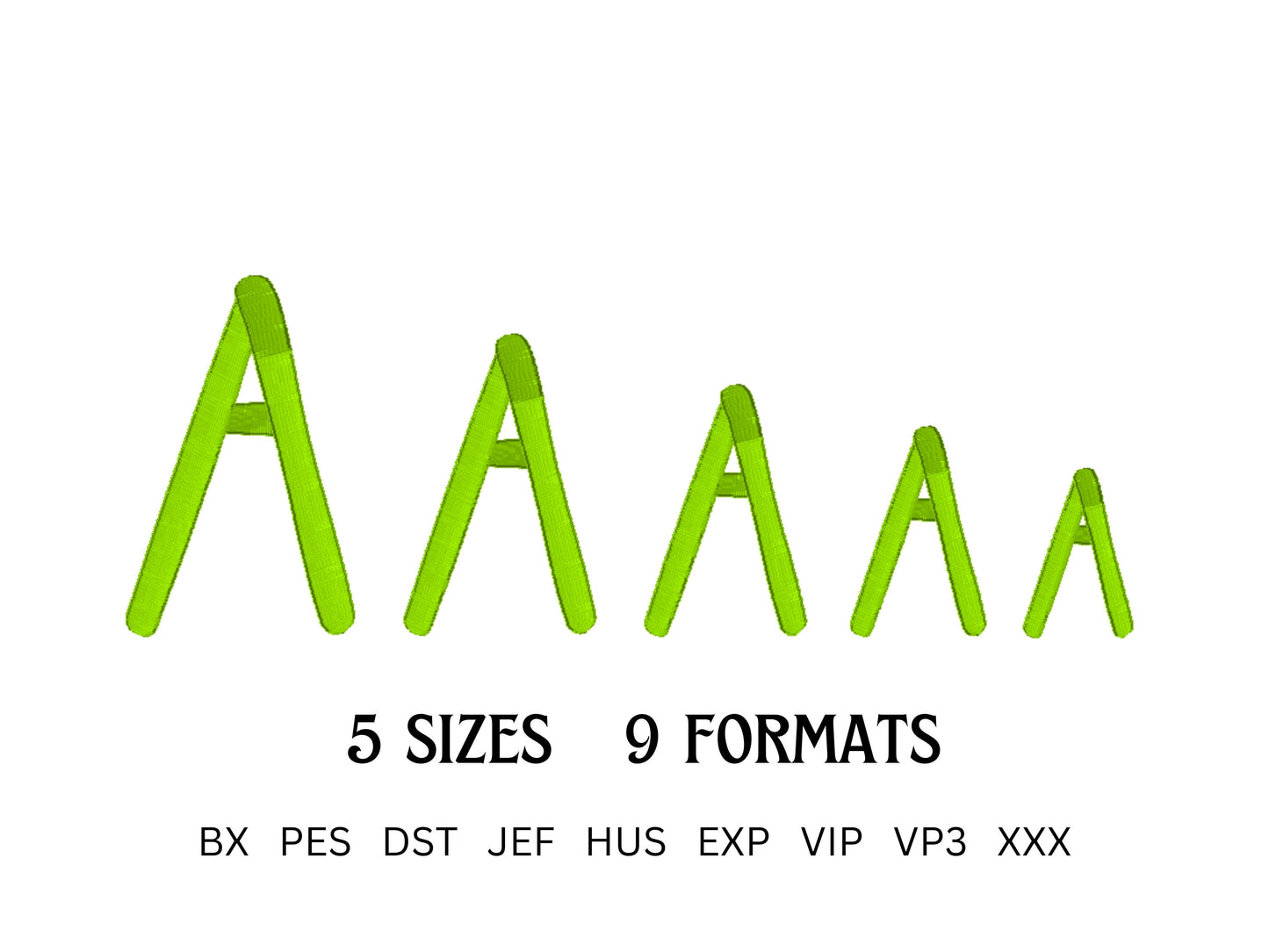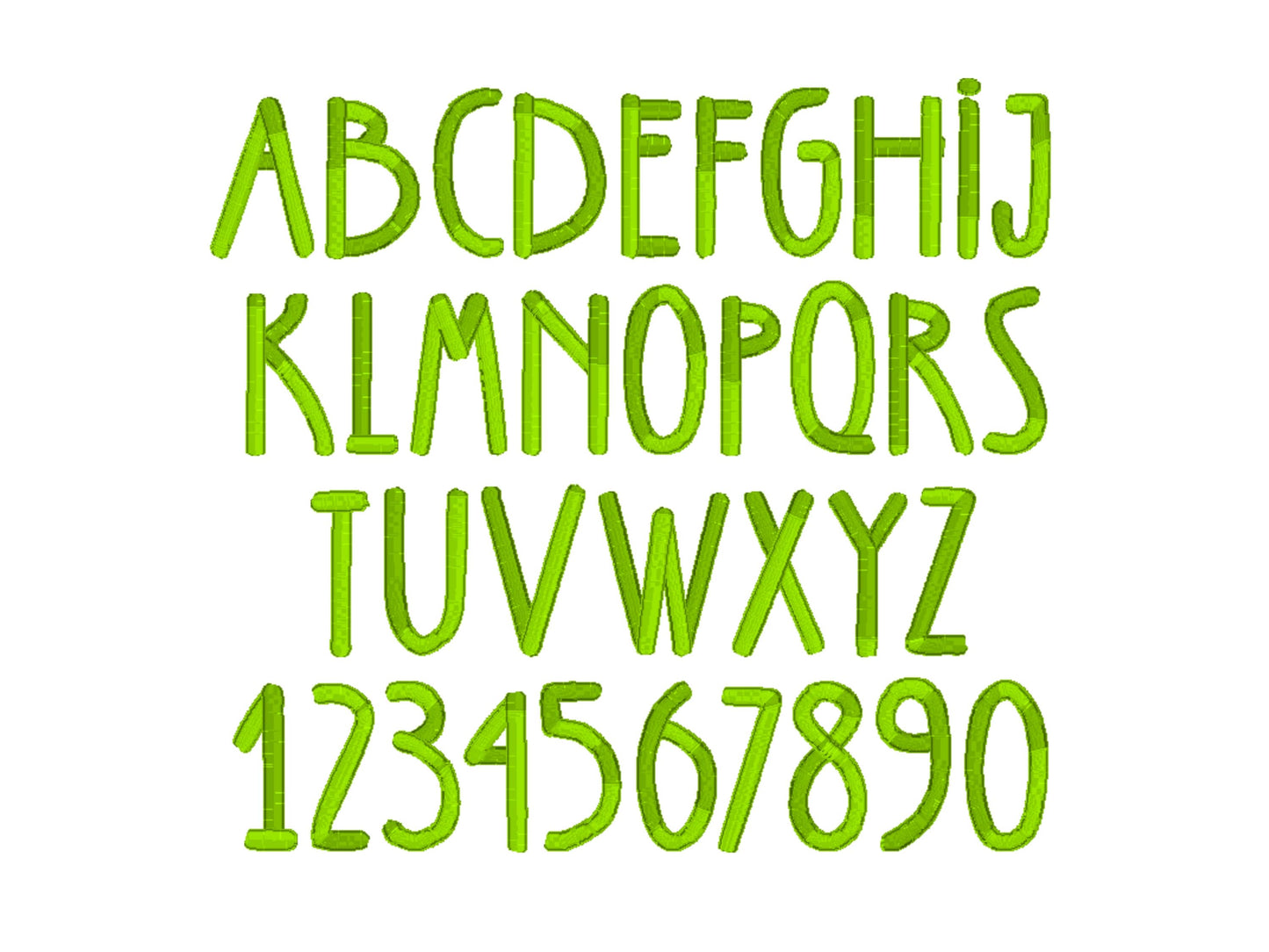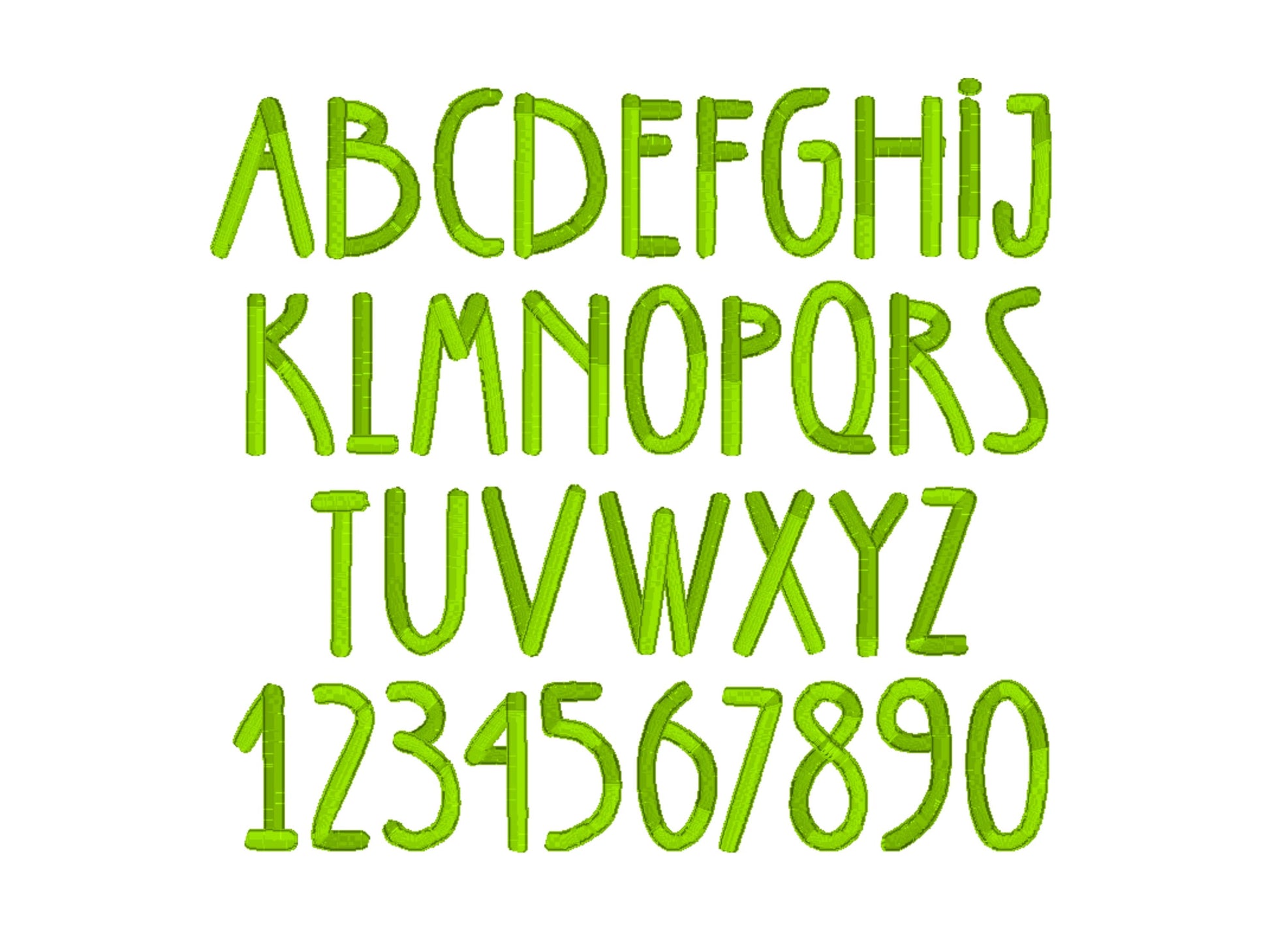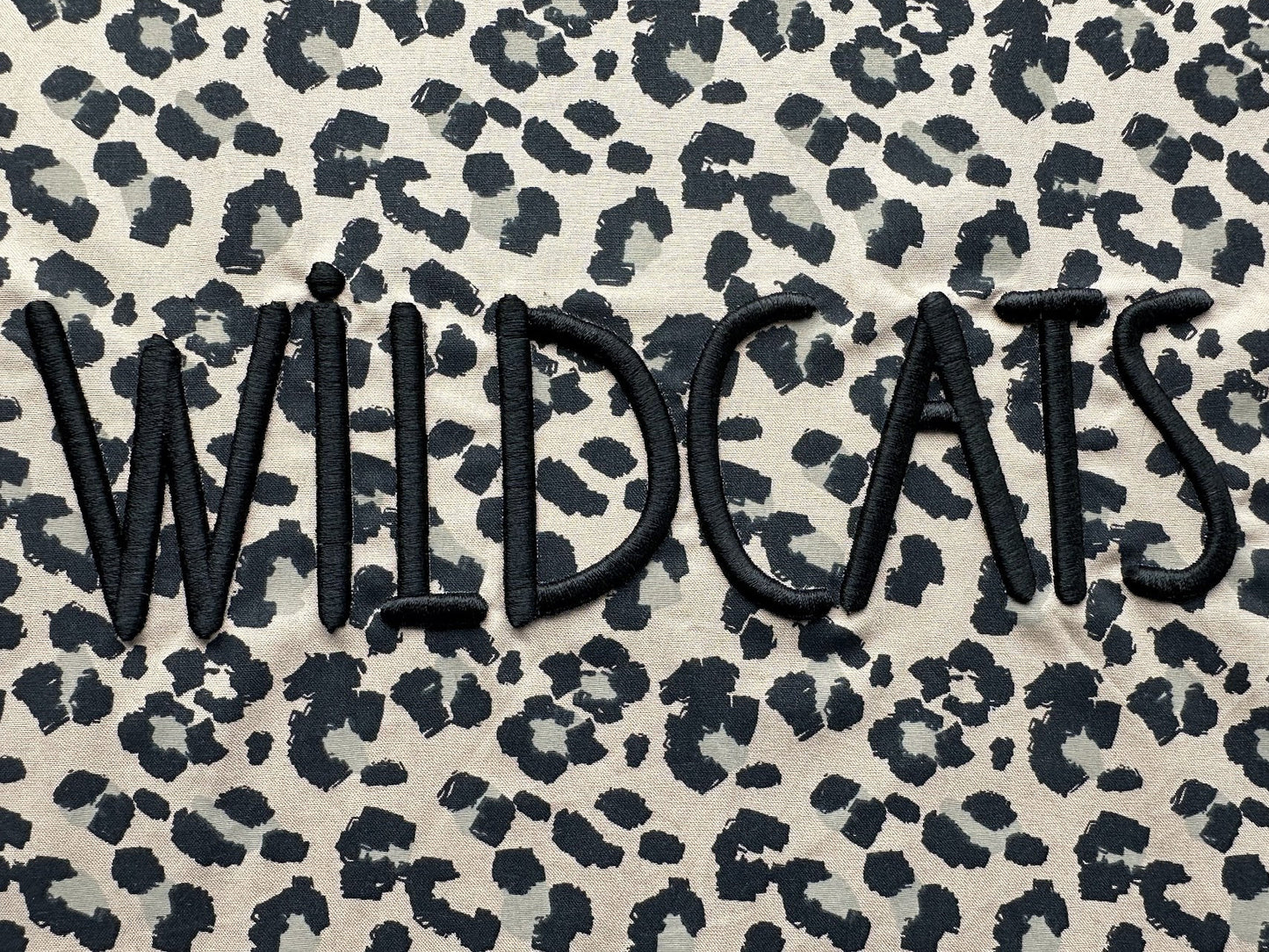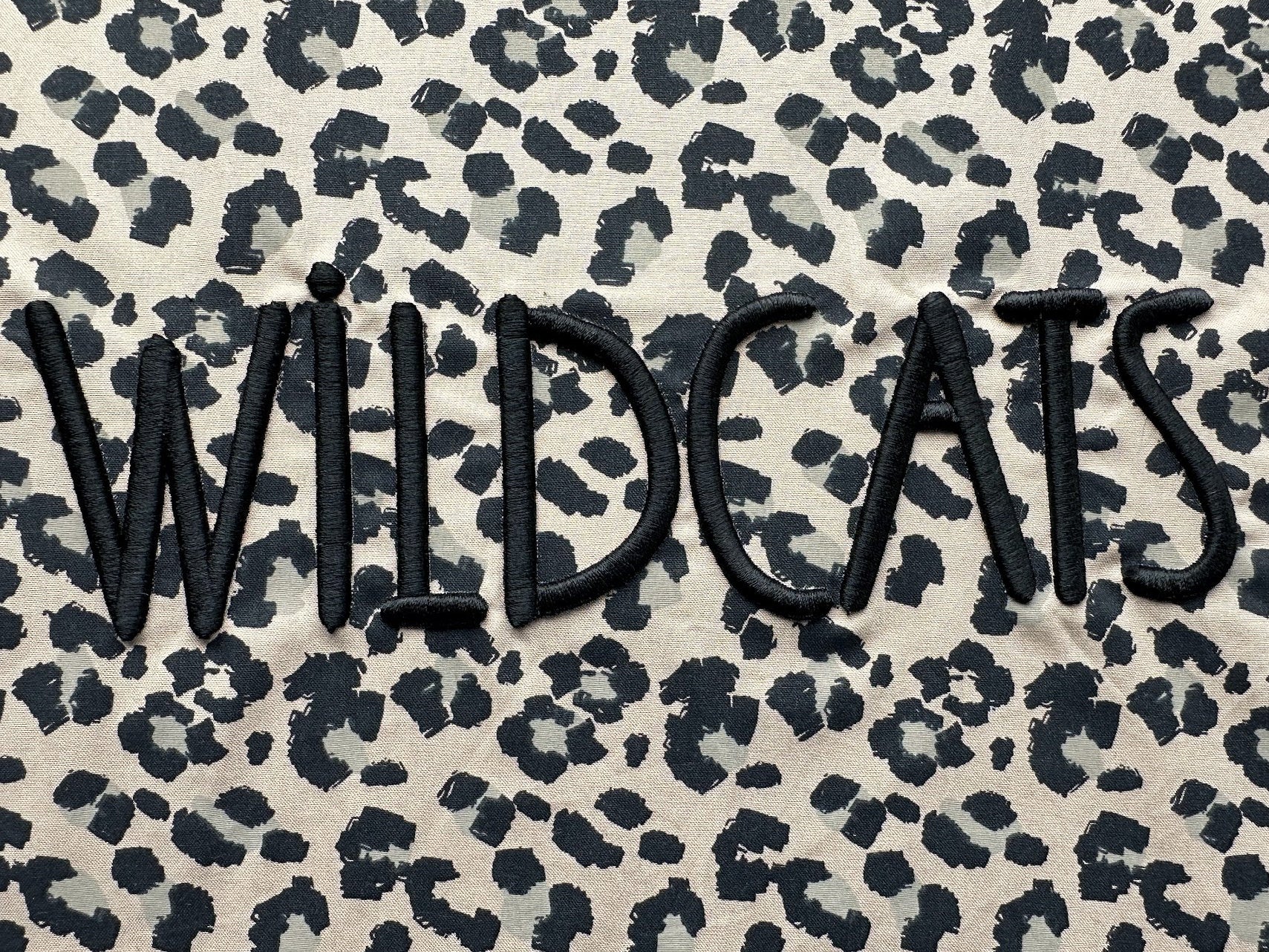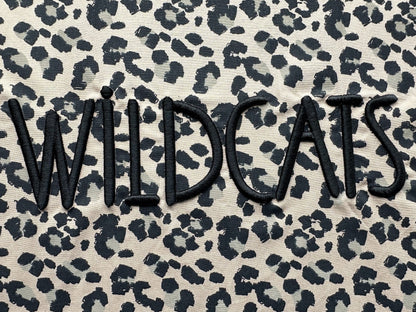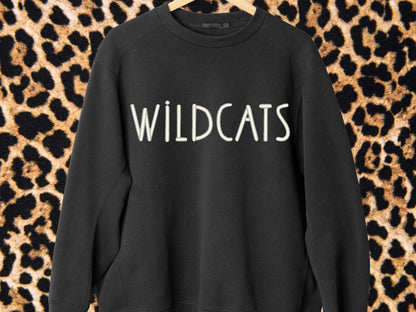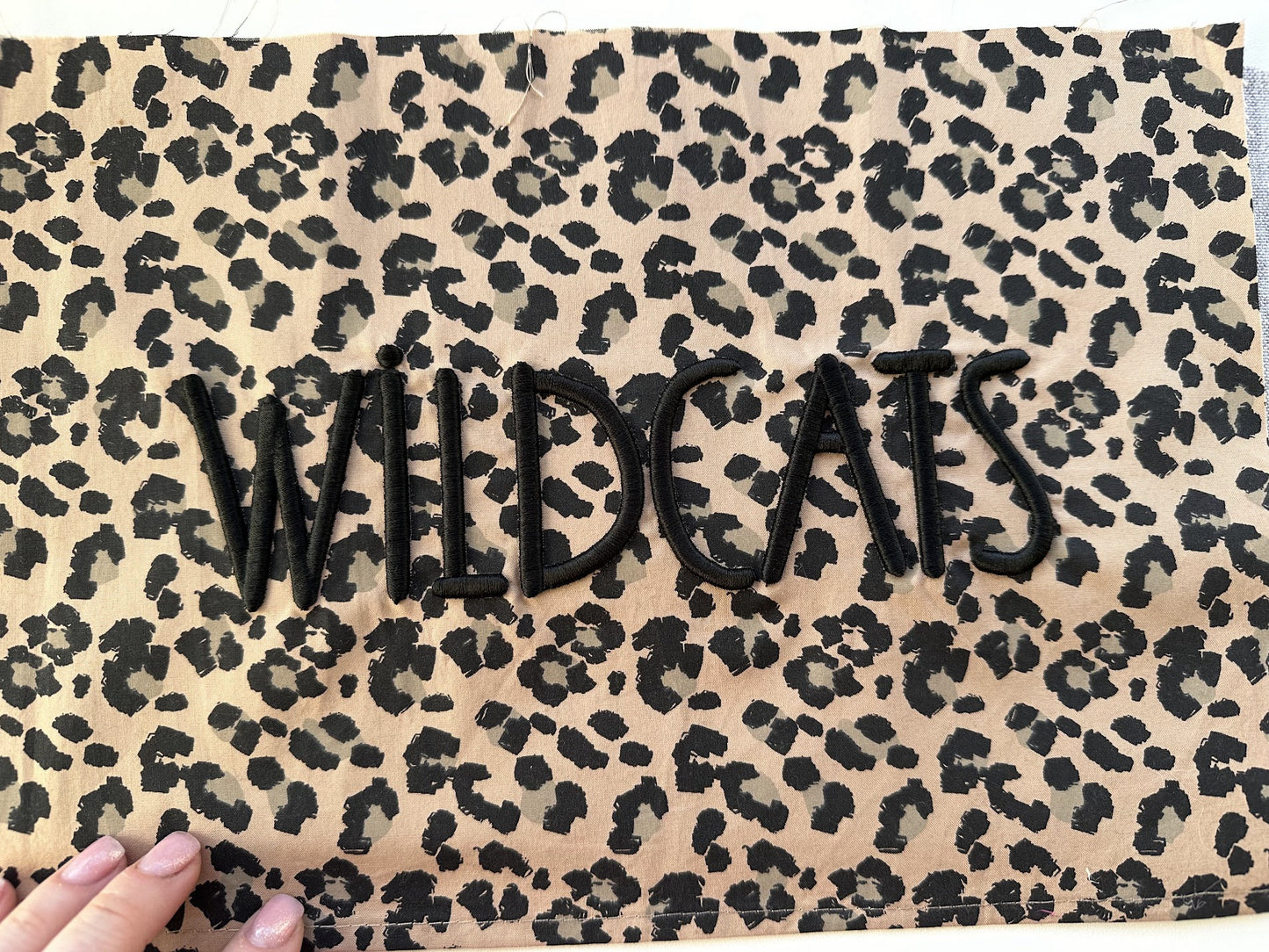
Or click to open the linkA 3D puff block font with a wild, sporty look, stitched over puffy foam. Great for caps, team shirts and school spirit wear.
Uppercase letters A to Z and numbers 0 to 9 in five sizes: 1.5, 1.8, 2.2, 2.6 and 3 inches. You need 3 mm puffy foam.